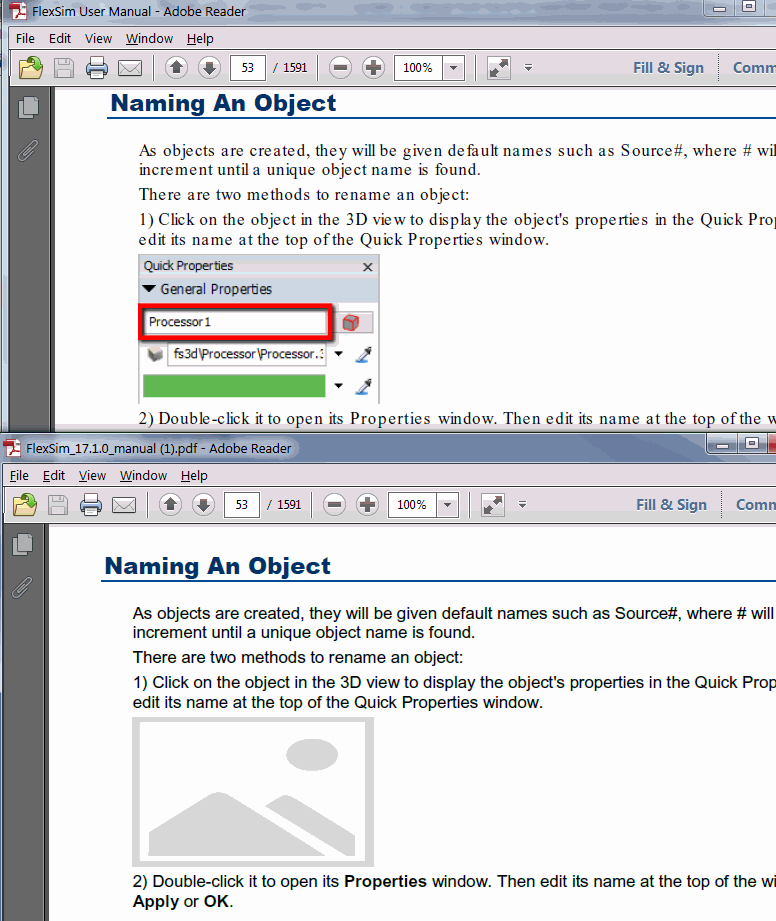
17 Update 1 Manual Font Hard To Read!
You guys changed the font on the 2017 Update 1 manual. It is very hard to read. Can you re-issue it with an easier-to-read sans serif font like before? Thanks.
The user manual font hasn't been changed. The font is set to the Helvetica Font Family, which is Helvetica and Arial, both san-serif fonts. What does your user manual look like?
He's talking about the PDF file you can download
For the PDF I downloaded today (5/24/17), Helvetica has been replaced with Courier.
Here is a pic of the difference...
I don't know why the dev team has chosen to publish the .pdf user manually differently for the latest version. Perhaps they will chime in.
Serif vs Sans Serif is largely a matter of taste or preference. Designers will choose one or the other based on their goals. Perhaps another user requested serifs for their printed manuals, and this is another case of "you can't please all the people all the time."
The in-software manual remains sans:6786-2017-05-24-14-45-27-flexsim-2017.png
In the latest versions of Microsoft Word, you can open PDF files, at which point you can change the font to whatever you like best. I've just tested this on the 17.1.0 user manual, and globally changed the font to Arial, with the result attached here:
It is actually Times New Roman, according to Microsoft Word upon opening the PDF.
Putting the 'you can't please all the people' comment to the side, I was just bringing it up that the fact the font has changed from what we have seen through the years and is presently harder to read. You guys want customer feedback, right? Yes, you can open the pdf in Word, but the conversion is not perfect.
We do want and value your feedback, @Stan Davis. If the change was an oversight or a whim, then I'm sure this can be changed back based on your feedback. If the change was due to other feedback I'm not aware of, the dev team will certainly take yours into consideration, in addition to whatever prompted the change in the first place.
Looks like the font change was a result of a technical problem in the automatic build.
I appreciate the effort with this. However, the corrected manual has missing images throughout the entire manual. I downloaded it twice to verify the issue. Pages 53, 56, 63, 64, 68, 69, 71, ...1584.
Here is a pic comparing the initial manual with the revised manual...